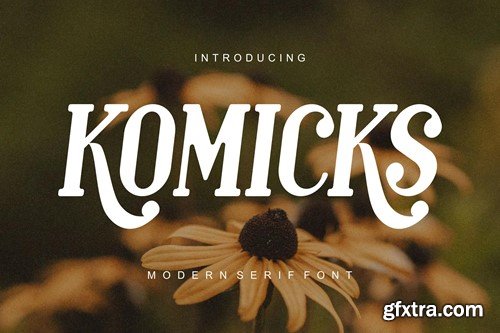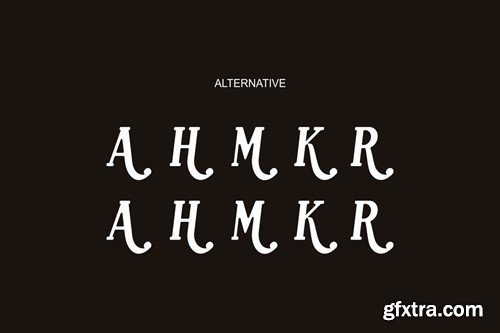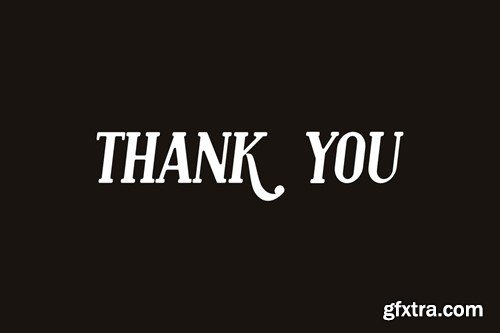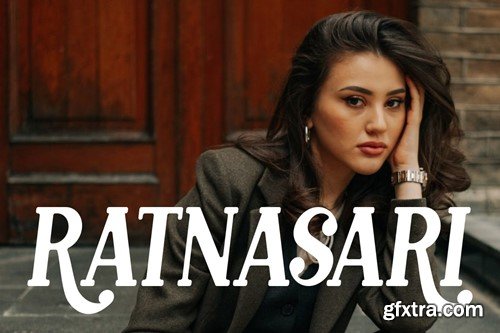
卡通客 - 现代衬线字体 VQ3B2HK
Komicks - Modern Serif Font
Introducing our new product Komicks Font Modern Serif Font Komicks Font Modern Font is a bold and authentic display font. The font is suitable for any branding project like logo, t-shirt printing, esport, and many more. outstanding in a wide range of contexts. availlable